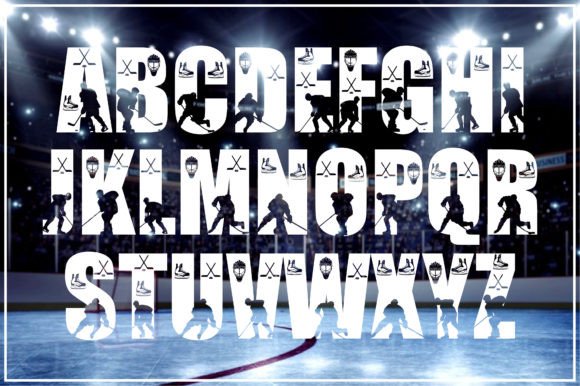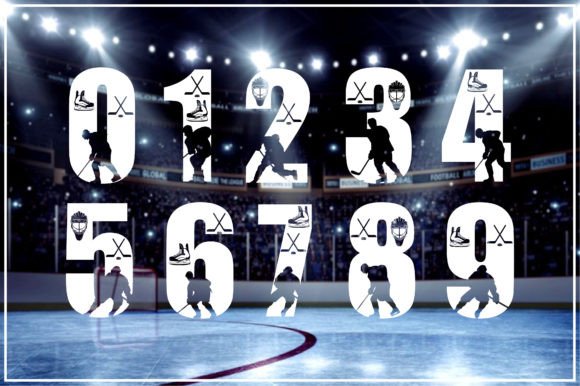
Hockey Font
Hockey is a and playful decorative font. It is ideal for children sporting events. Add this chunky lettered font to your designs, and notice how it makes them come alive!